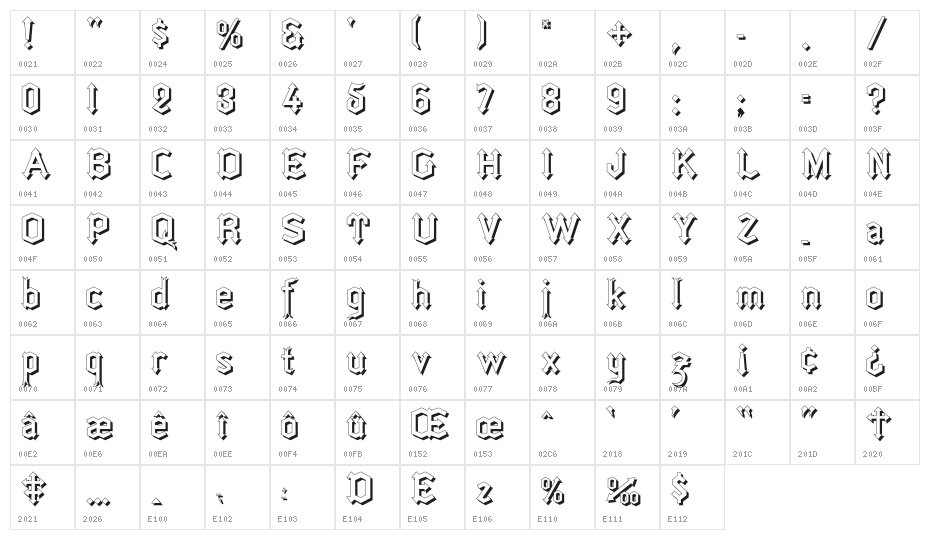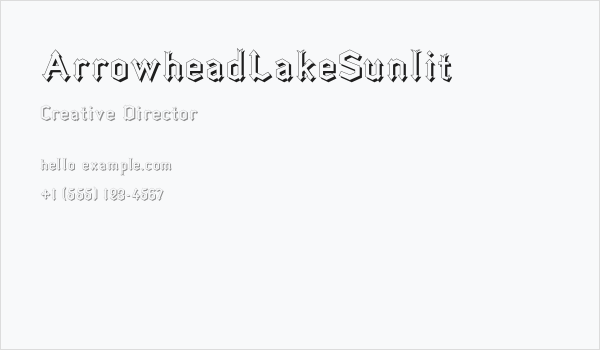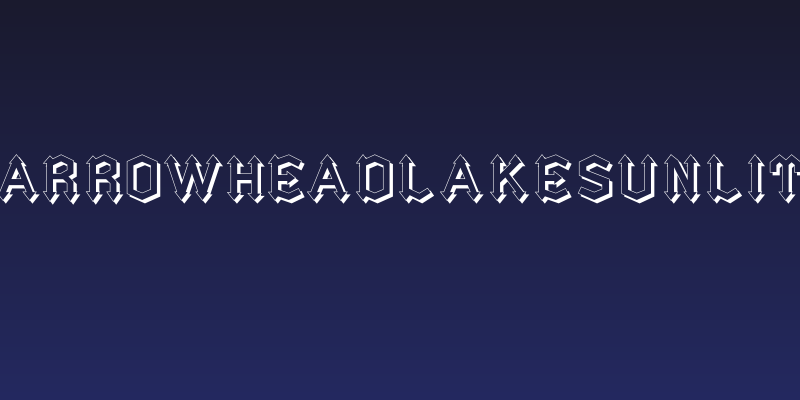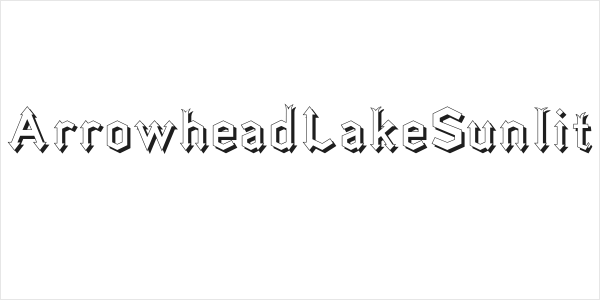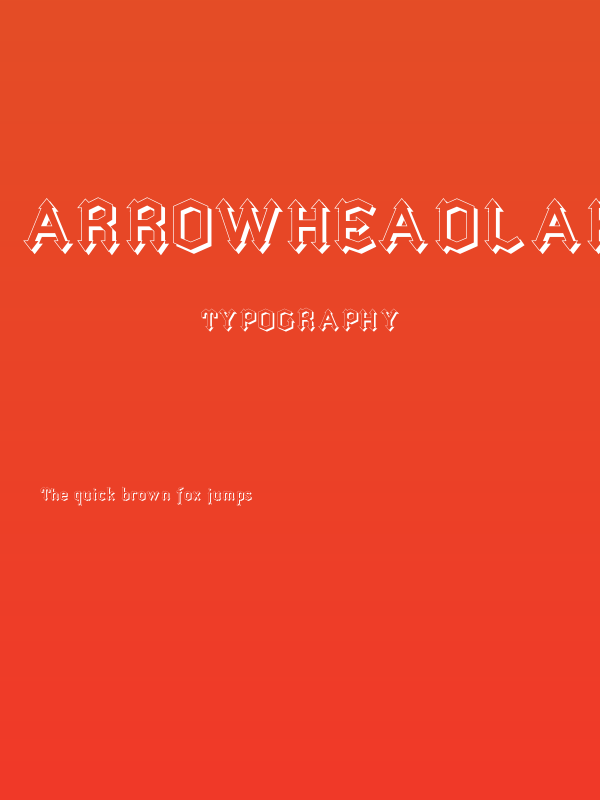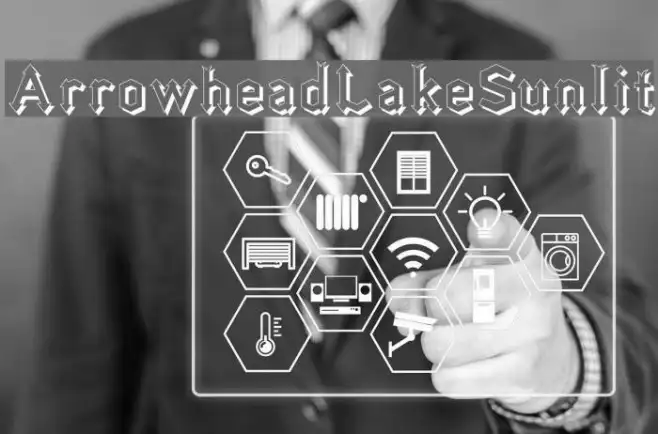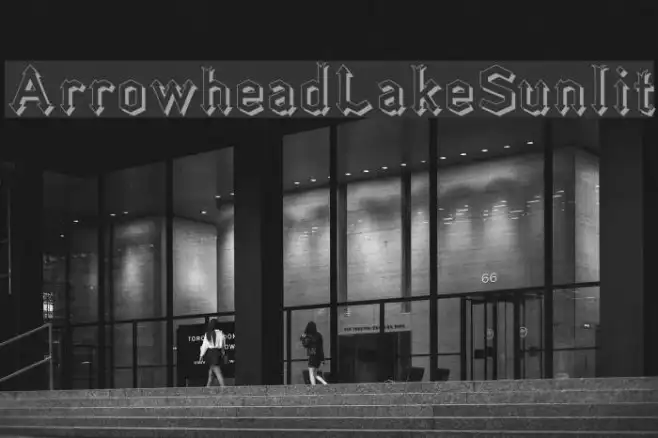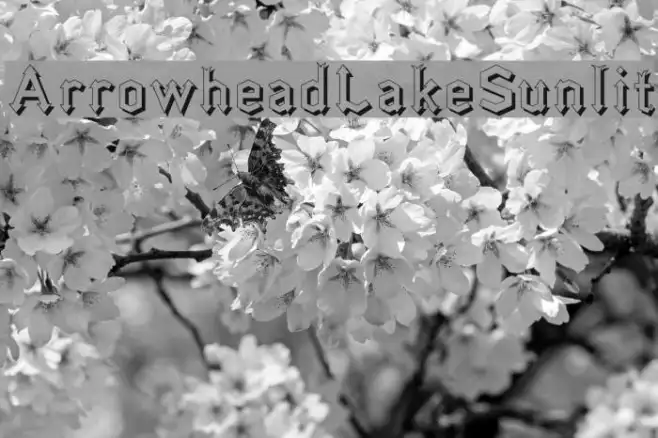
ArrowheadLakeSunlit Font
ArrowheadLakeSunlit Description
This font features a bold, geometric design with a three-dimensional effect, giving it a striking and dynamic appearance. The characters are constructed with sharp angles and a shadow-like outline that enhances their depth. The uppercase and lowercase letters maintain a consistent style, with the uppercase being more pronounced. The numerals and special characters follow the same bold and angular design, ensuring uniformity across all glyphs. This font's unique style makes it ideal for creating eye-catching headlines or logos that require a strong visual impact.
| Proposed Projects | Ideal for branding, logos, posters, and any design project that requires a bold and impactful typeface. |